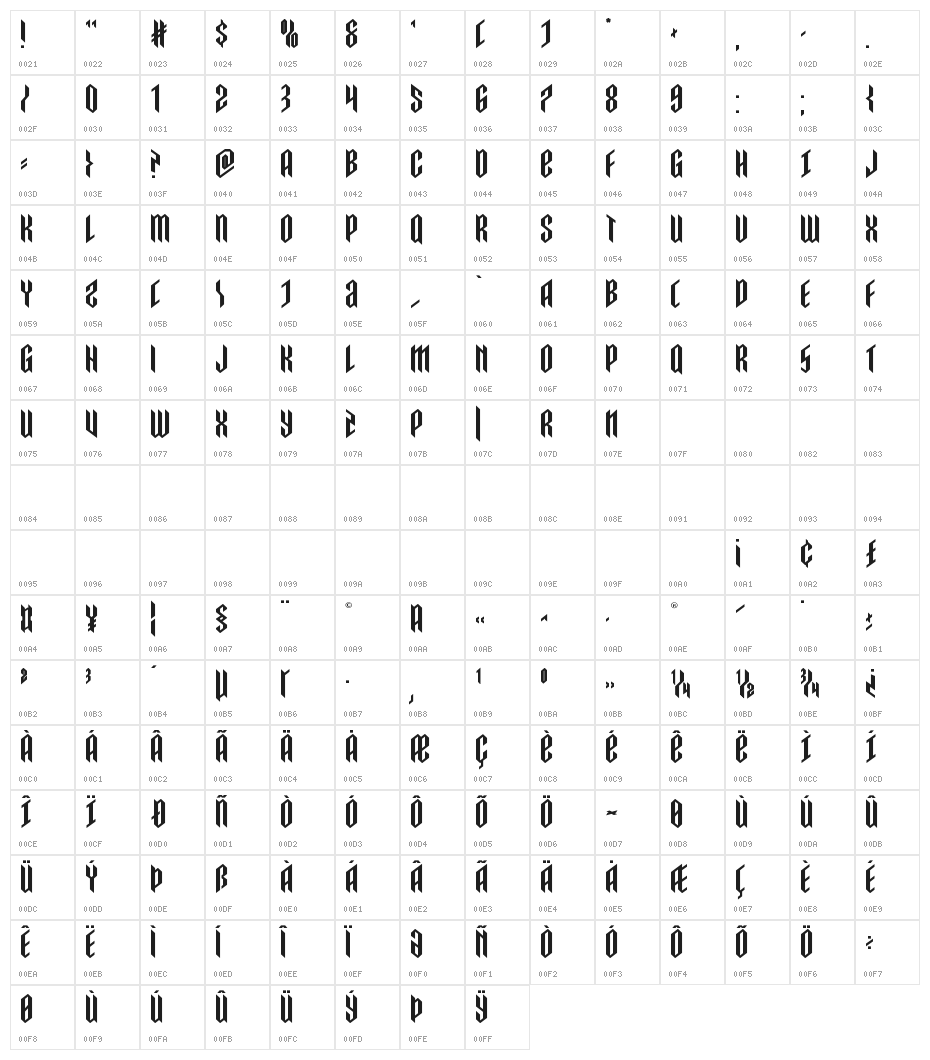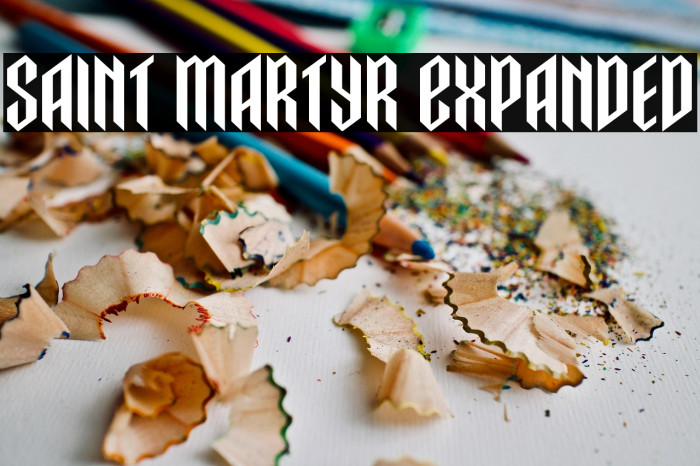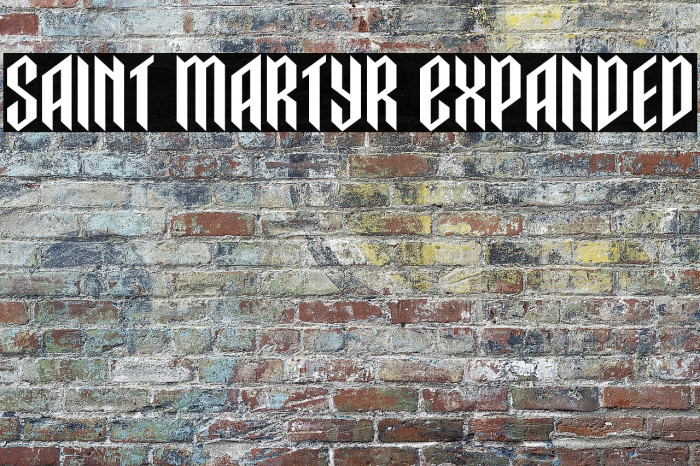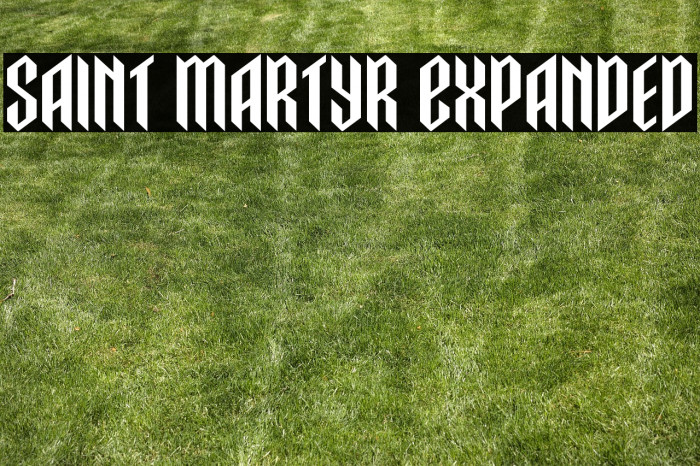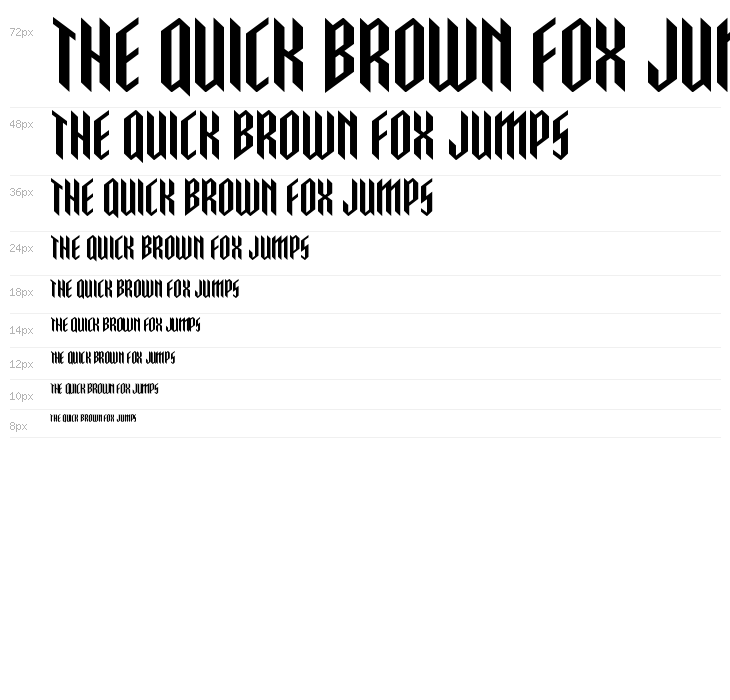
Saint Martyr Expanded Font
Saint Martyr Expanded Description
This font features a bold, angular design with a distinct Gothic influence. The characters are sharply defined with strong vertical lines and pointed edges, giving it a dramatic and imposing appearance. The uppercase and lowercase letters maintain a consistent style, with a uniform height and width that enhances its structured look. Numbers and special characters are crafted with the same attention to detail, ensuring a cohesive visual experience. The font's expanded width allows for a commanding presence, making it ideal for impactful designs.
| Proposed Projects | Ideal for branding, posters, album covers, and any project requiring a bold, dramatic typeface. |